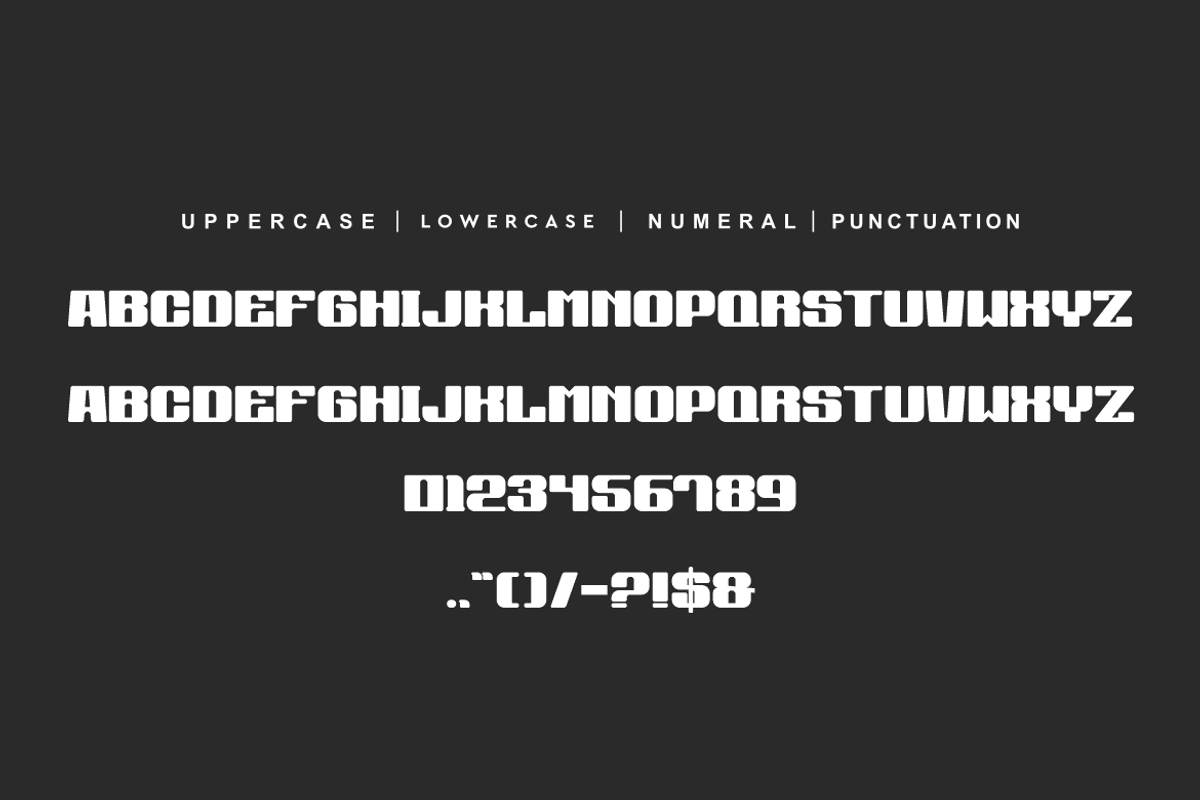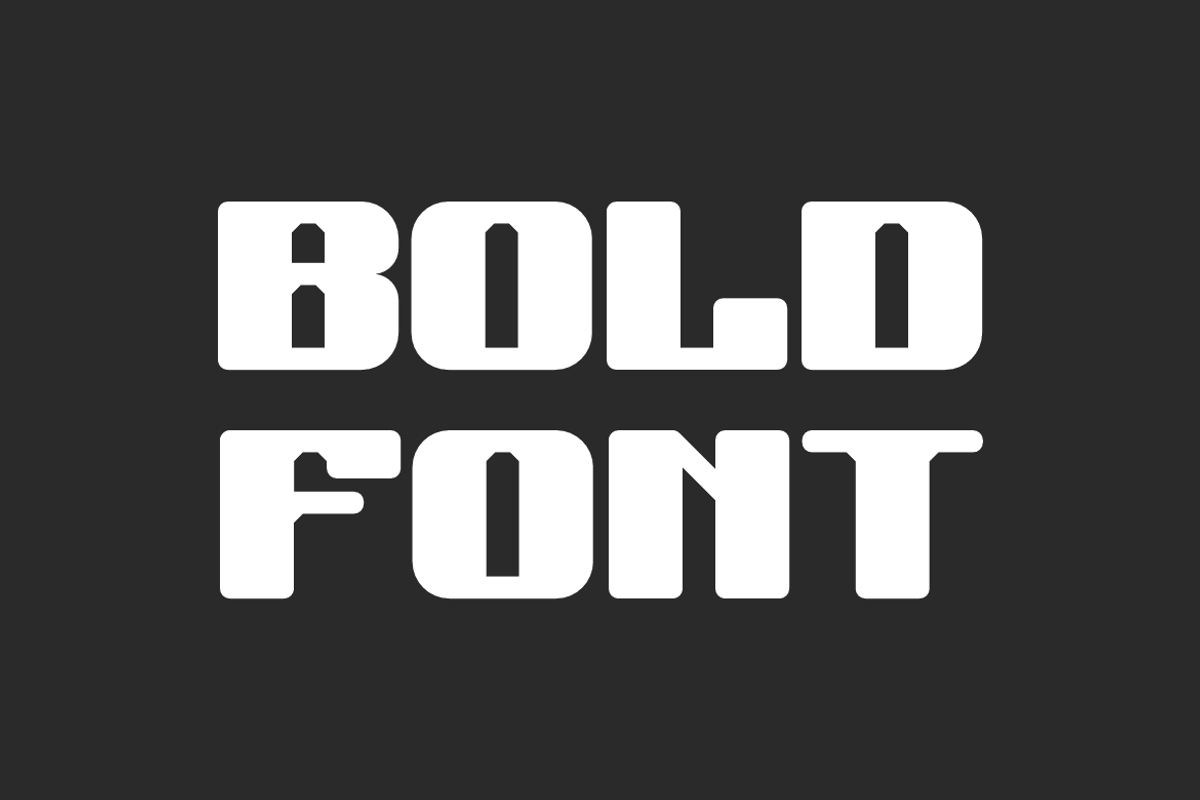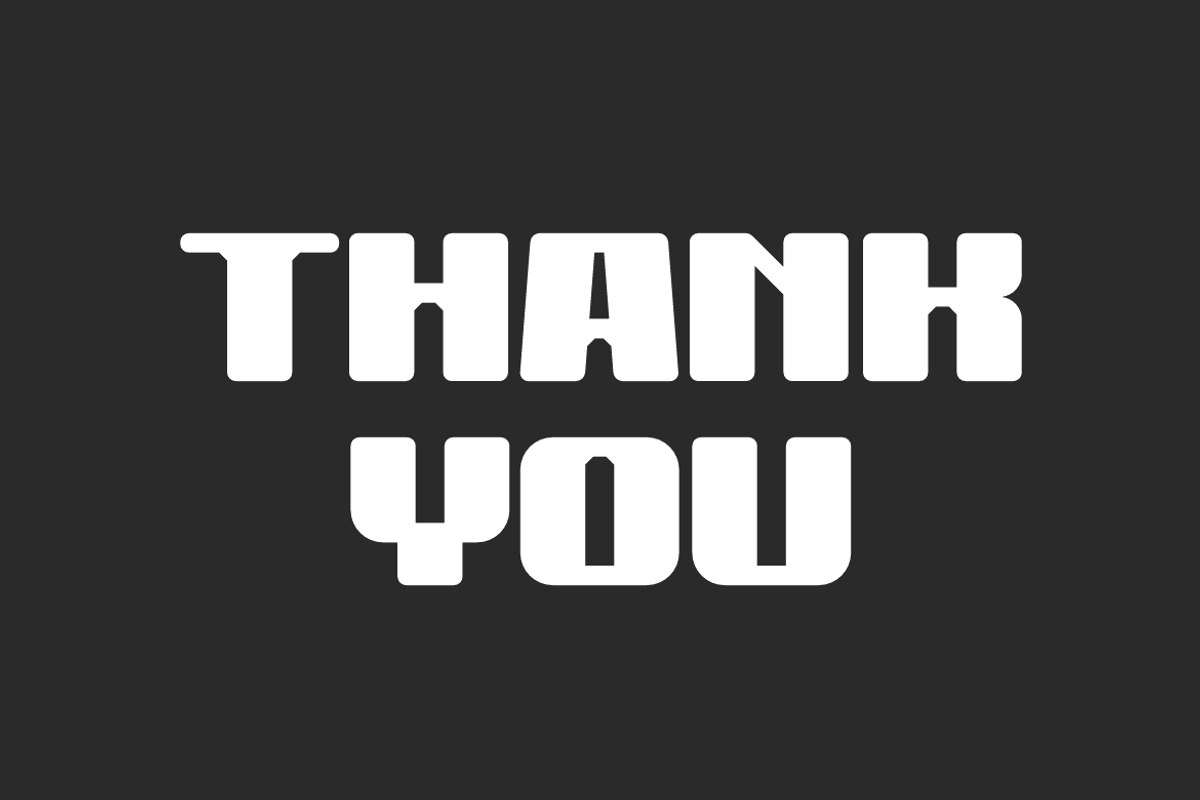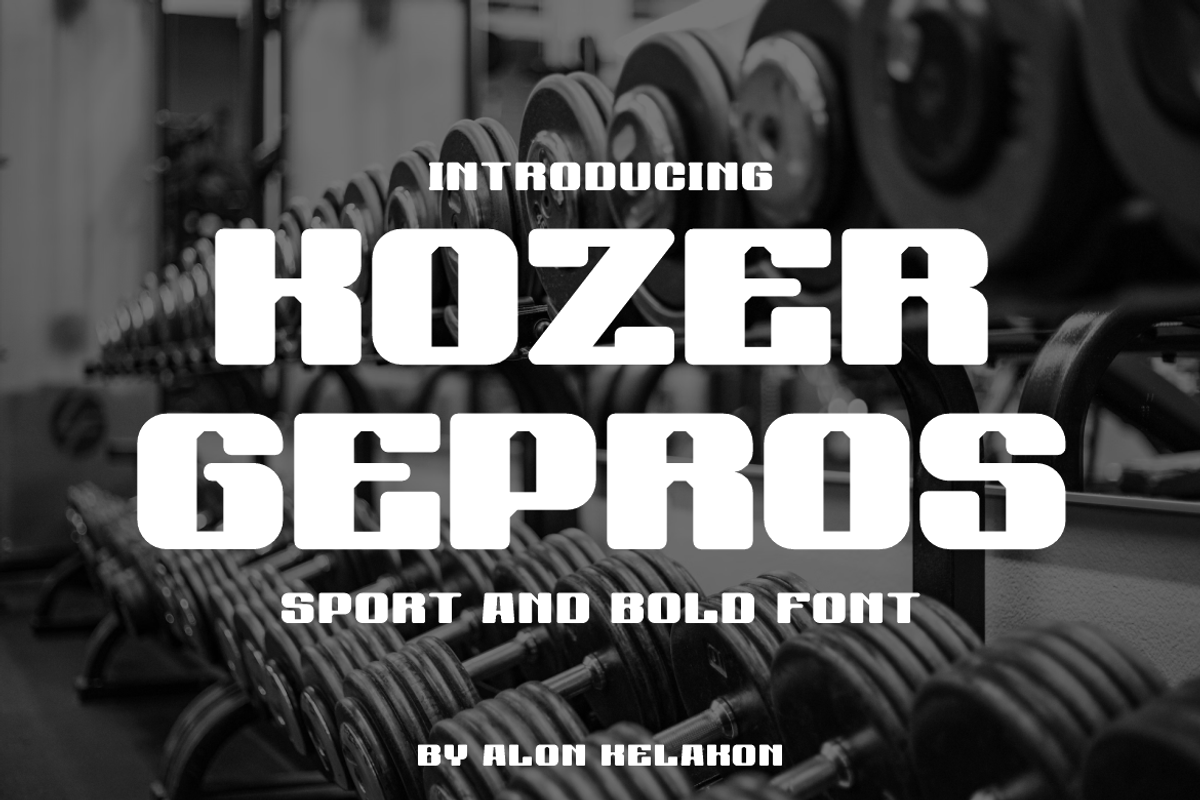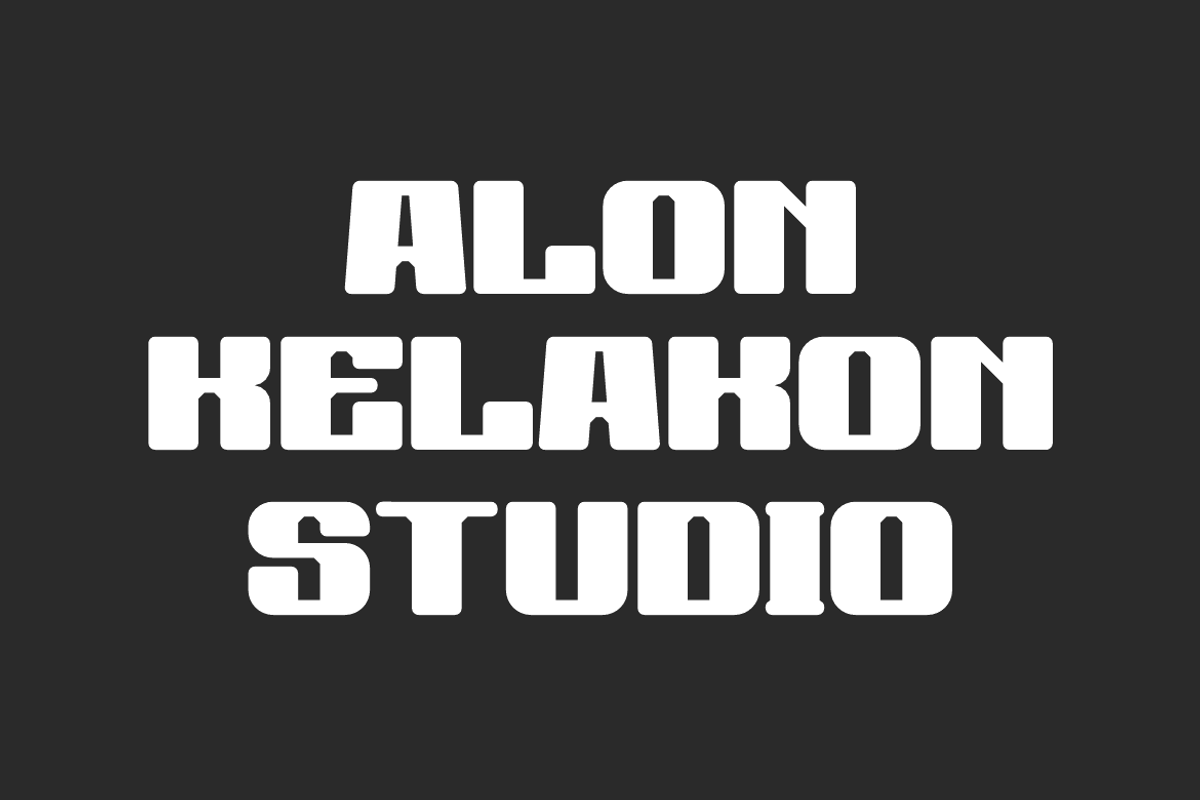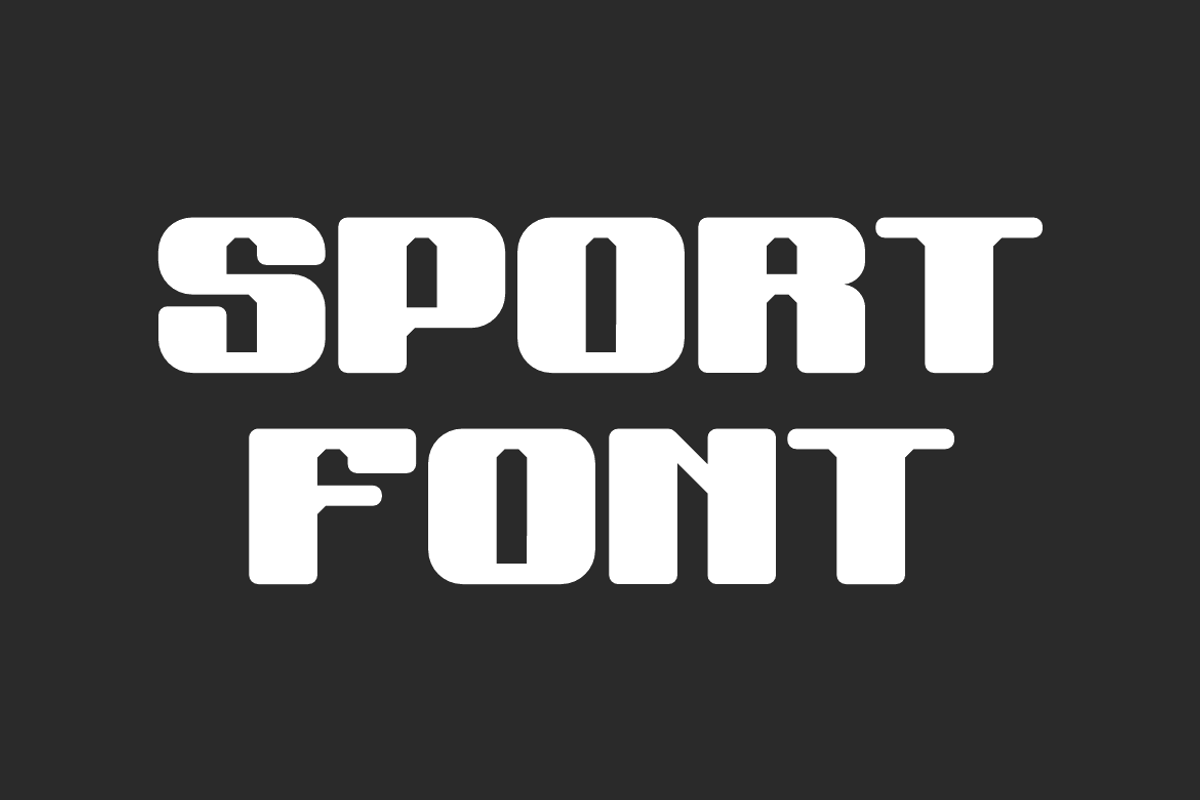
Kozer Gepros
Kozer Gepros Font is unique . Ready to use for your design like labeling, movie sceen, poster, movie title, gigs, album covers, logos, and much more.